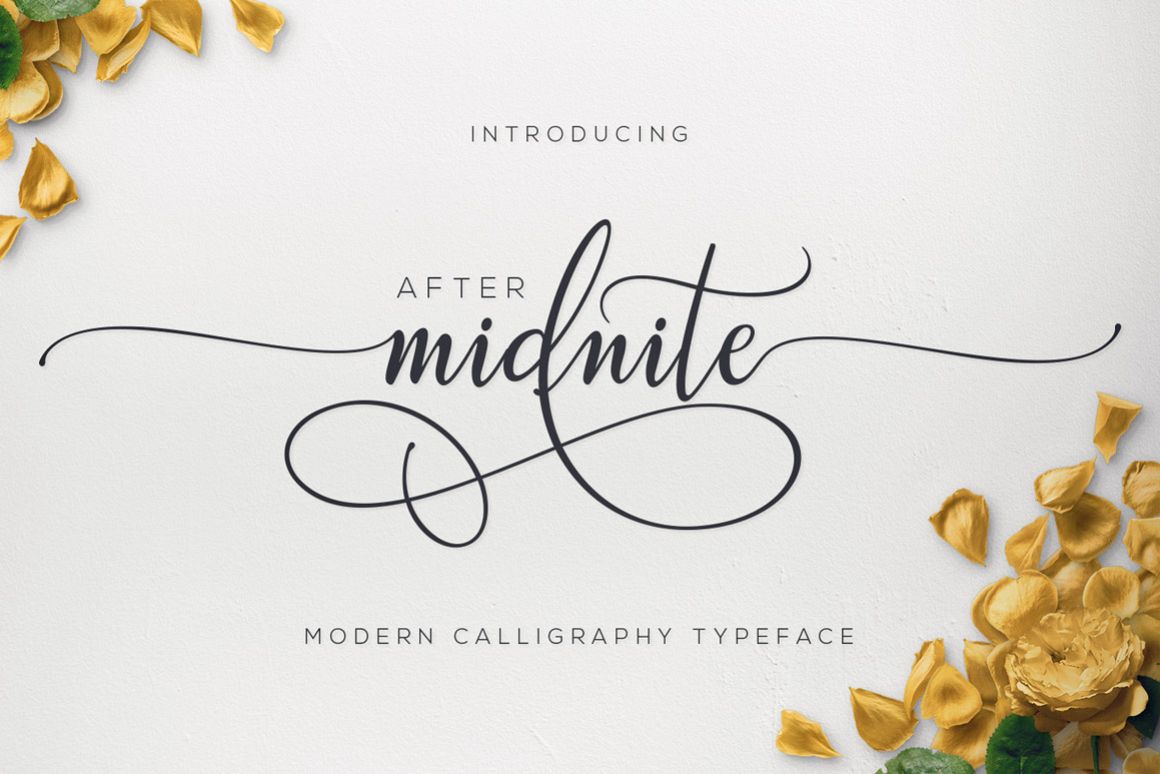
After Midnite
After Midnite Typeface is a modern calligraphy typeface based on hand lettering that consists of irregular swirling and flowing, so it looks beautiful. This Typeface suitable for wedding invitations, greeting cards, quotes, photo captions, posters, branding, design of water-based paints, correspondence, and a variety of other purposes.
After Midnite Typeface includes several Ligatures, Stylistic Alternates, Stylistic Sets ( These alternates are accessible by turning on 'Stylistic Alternates' in Photoshop, or via any software with a glyph panel, e.g. Adobe Illustrator, Photoshop CC ), and has given PUA encoded (specially coded fonts).
• Standard ligatures
• Stylistic sets